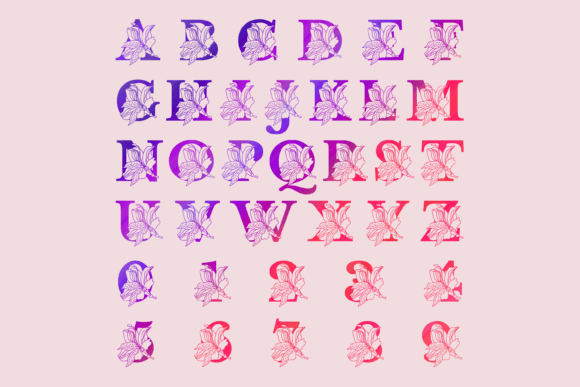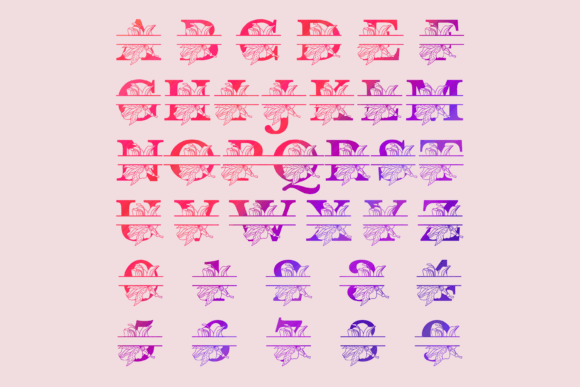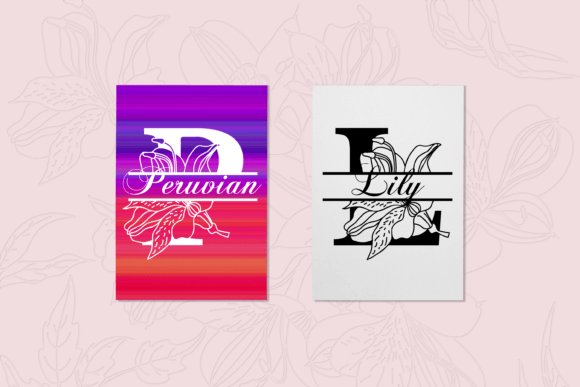
Introduction to Alstroemeria Split Font
Alstroemeria Split Monogram Duo is an elegant botanical decorative font consisting of duo styles (regular & split).
This font is ideal for adding special decoration to your crafts Whether you use it for custom designs, DIY crafts, or just any creation that requires a lovely touch, this font will be an amazing choice.
Key Features of Alstroemeria Split Font
Why Choose Alstroemeria Split Font?
Alstroemeria Split Font offers exceptional quality and versatility, making it a valuable addition to your design toolkit. Whether you’re creating for personal projects or commercial use, Alstroemeria Split Font delivers professional results.